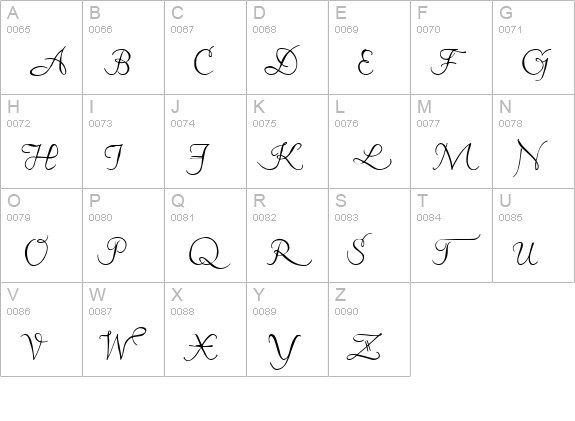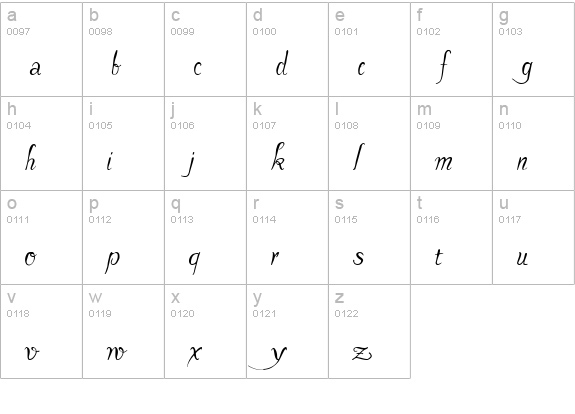
Pavane Font Details
Pavane is a stunningly elegant font that exudes a timeless sophistication. Its graceful curves and delicate serifs create a sense of refinement and class, making it the perfect choice for any project that requires a touch of elegance. With its versatile nature, Pavane can be used for a variety of design purposes, from invitations and wedding stationery to branding and logo design. Its balanced letterforms and unique character set make it a standout choice among other fonts. But what truly sets Pavane apart is the fact that it is free. Yes, you read that right. This exquisite font is freely available to download at FontsMarket.com. Now you can add a touch of luxury to your designs without breaking the bank. Whether you're a professional designer looking for a high-quality font to elevate your work or a casual user in need of a beautiful font for your personal projects, Pavane is the answer. Its timeless beauty and affordability make it a must-have in any designer's toolkit. So why wait? Visit FontsMarket.com today and download Pavane for free. Elevate your designs and make a lasting impression with this exquisite font.